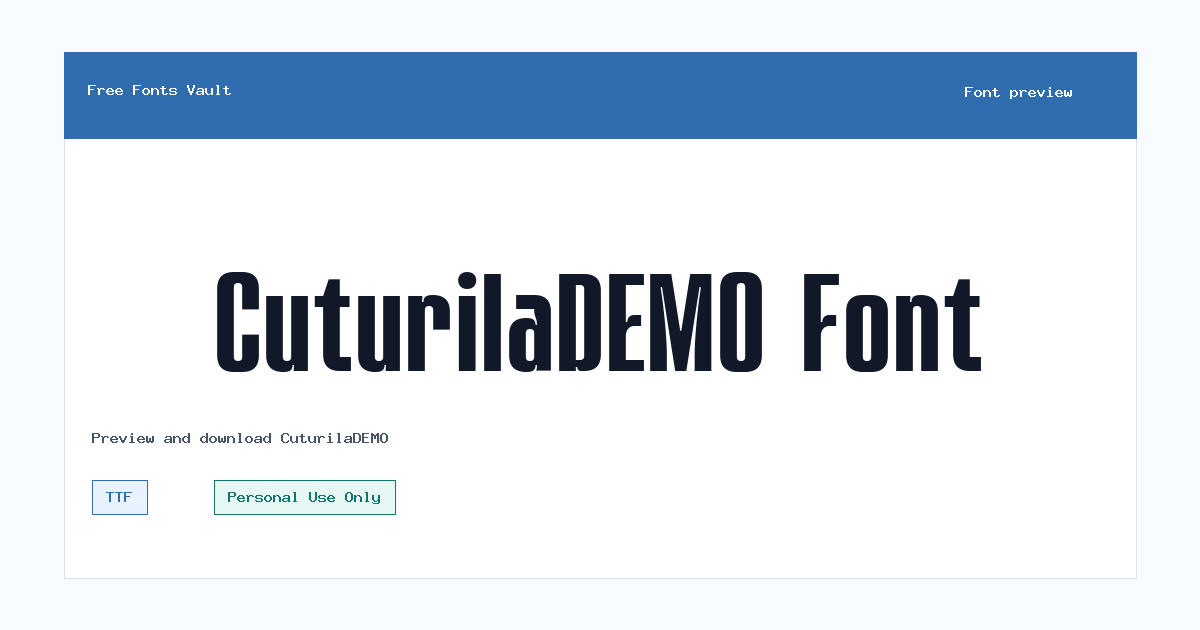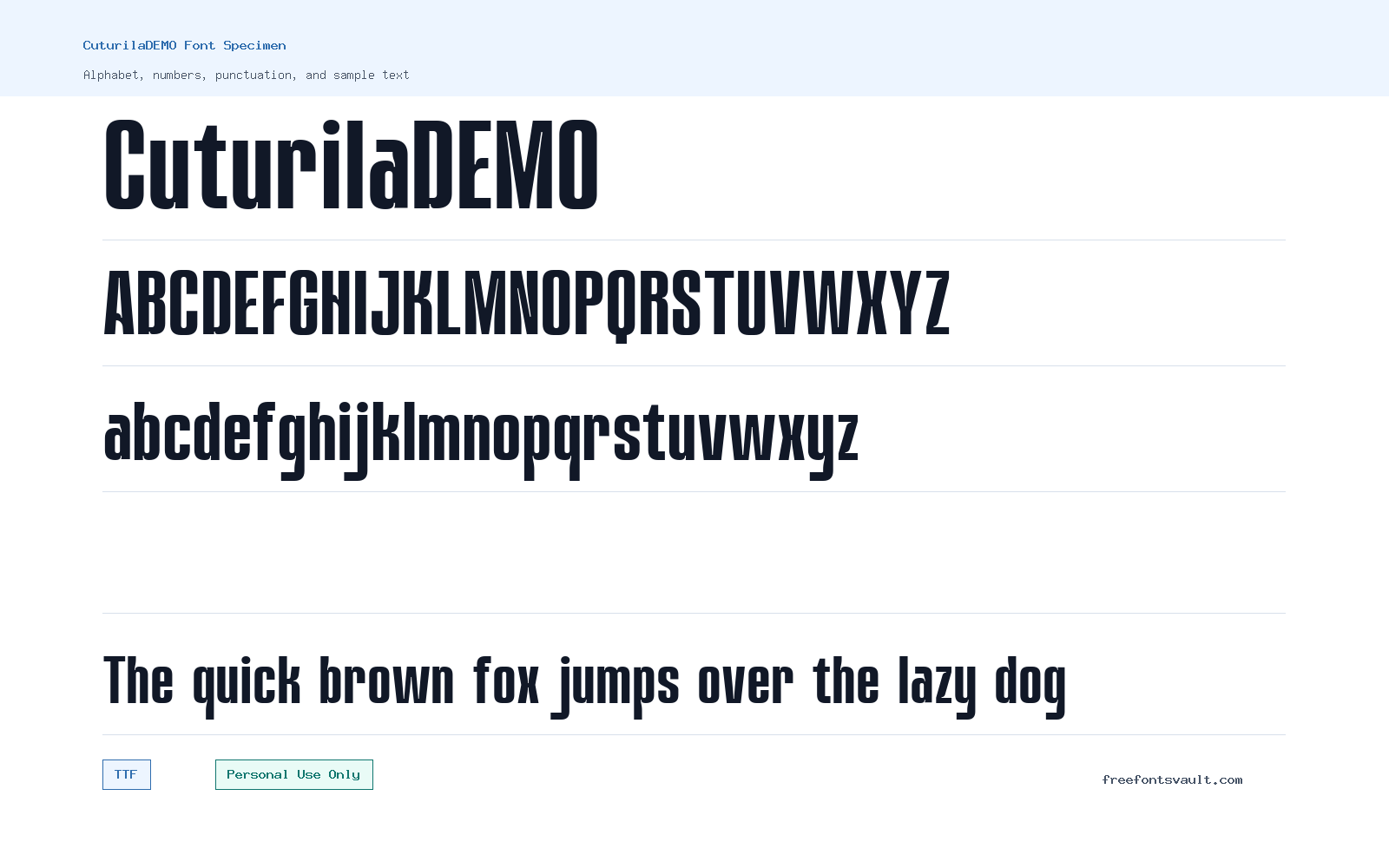
CuturilaDEMO
- Designer Ragamkata Studio
CuturilaDEMO font.
CuturilaDEMO is a personal-use font from Ragamkata Studio, offered as a regular TTF file for visitors who want to test it in previews, design drafts, and non-commercial creative work.
About CuturilaDEMO
CuturilaDEMO is best approached as a display or project-testing font rather than a finished commercial brand asset. The available file is a Regular style with normal weight, so it gives you one main voice to work with instead of a large family of weights. The license text identifies it as a Cuturila Sans Serif font and marks it for Personal Use Only, which is the most important detail for anyone planning to use it beyond private drafts. If you are making client work, paid products, ads, merchandise, monetized videos, or a public brand identity, treat the download as a trial version until you have confirmed the proper commercial license with the creator or seller.
For design use, start by typing the actual words you plan to use rather than judging the font from a sample line alone. Test short names, initials, headings, dates, and mixed-case phrases. A single-weight font can work well for posters, logo sketches, social graphics, mood boards, invitations, website hero mockups, packaging concepts, and personal artwork, but it may need support from another typeface when a design has body copy, captions, navigation, or long paragraphs. Try it at large sizes first, then check smaller sizes to see whether spacing, counters, punctuation, and numbers stay clear enough for your layout.
- Single normal-style, 400-weight variant, useful for simple title treatments and quick mockups.
- Sans serif licensing name, making it a practical candidate for clean display experiments.
- Good fit for previewing short text, names, headings, poster lines, and logo concepts before choosing a final licensed font.
- Personal logo sketches and brand mood boards
- Poster titles and event concept layouts
- Social media graphics for non-commercial projects
- Website hero section mockups
- Packaging or label design drafts
- Invitation headers and personal stationery concepts
- Typography experiments in Photoshop, Illustrator, Figma, Canva, or similar tools
The designer is listed as Ragamkata Studio. No foundry name or official designer link is confirmed in the available font details.
Who designed CuturilaDEMO?
CuturilaDEMO is credited to Ragamkata Studio.
How many styles are included?
One Regular style is listed, with normal style and 400 weight.
Can I use CuturilaDEMO for a logo?
Is CuturilaDEMO good for body text?
It is safer to test it mainly for short text and display use first. For paragraphs, pair it with a highly readable text font and check spacing, punctuation, and legibility at smaller sizes.
What should I check in the preview before downloading?
Preview your exact wording, numbers, punctuation, uppercase and lowercase letters, and any accented characters you need. Also test the font at both headline size and smaller supporting-text size.